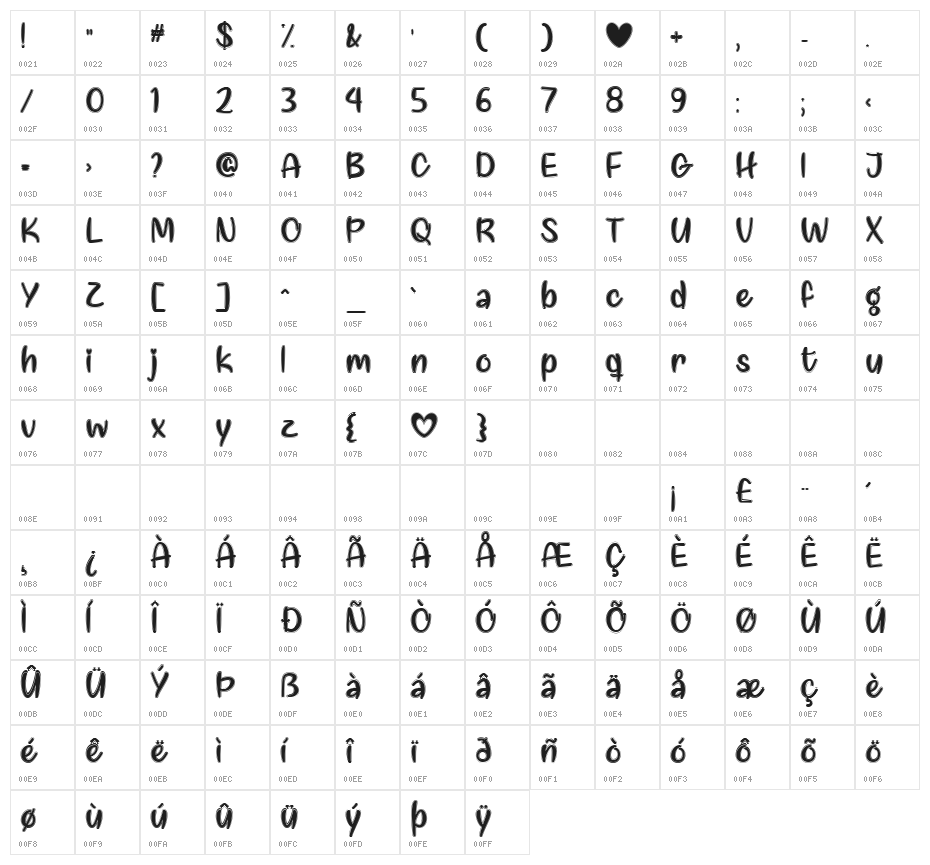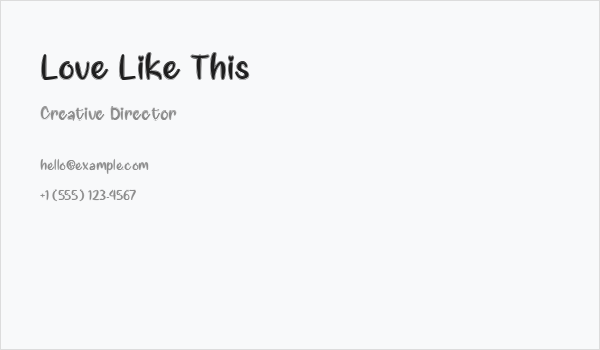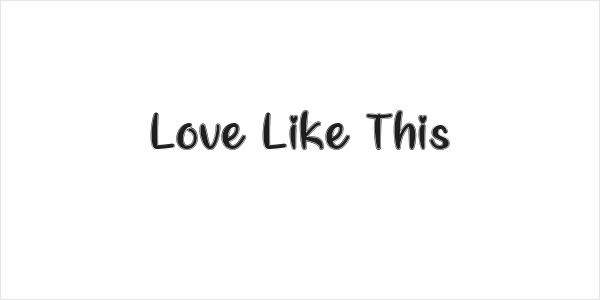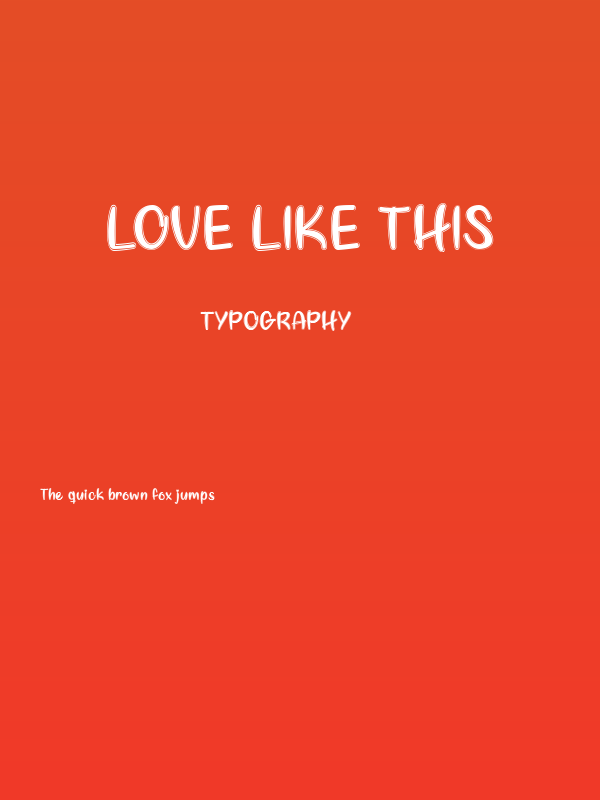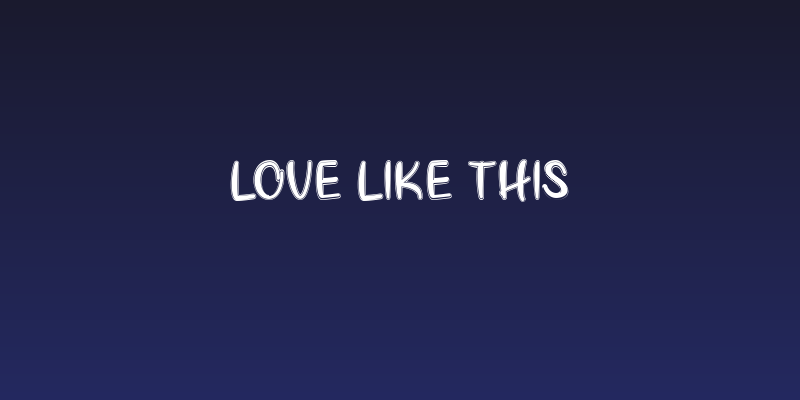
Love Like This Font
Love Like This Description
This playful and whimsical font features a bold, rounded style with a hand-drawn appearance. The letters are characterized by a consistent thickness, giving them a friendly and approachable look. The uppercase and lowercase letters maintain a cohesive design, with slight variations that add charm. The numbers and special characters are crafted to match the overall aesthetic, ensuring a uniform appearance across all elements. The font's unique style is accentuated by subtle decorative elements, such as small hearts on certain letters, enhancing its playful nature. This font is ideal for projects that require a touch of fun and creativity, making it perfect for children's books, playful branding, or casual invitations.
| Proposed Projects | Ideal for children's books, playful branding, casual invitations, and creative projects. |